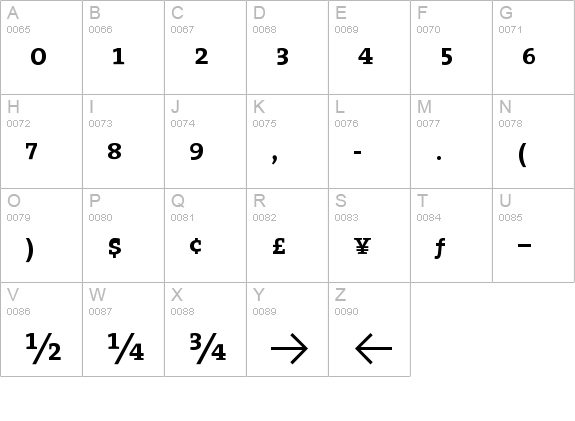
TheSerif Expert Font Details
TheSerif Expert font is an exquisite and sophisticated typeface that exudes elegance and professionalism. Its clean lines and refined curves make it a perfect choice for projects that require a touch of sophistication and sophistication. TheSerif Expert font offers a modern twist to traditional serif fonts, making it versatile and suitable for a wide range of design applications. With its timeless appeal, TheSerif Expert font can effortlessly elevate any design, whether it's a logo, branding materials, or editorial layouts. Its legibility and readability ensure that your message is communicated clearly and effectively. TheSerif Expert font strikes the perfect balance between classic elegance and contemporary flair, making it a truly unique and eye-catching choice. One of the best things about TheSerif Expert font is that it is free. Yes, you read that right. This stunning font is freely available to download at FontsMarket.com, allowing designers and creators to access its beauty without any cost. This accessibility makes it an excellent option for students, freelancers, and professionals alike, who are looking for a high-quality font without breaking the bank. So, if you're in search of a font that combines sophistication, versatility, and affordability, look no further than TheSerif Expert font. Download it today from FontsMarket.com and elevate your designs to a whole new level of elegance and professionalism.